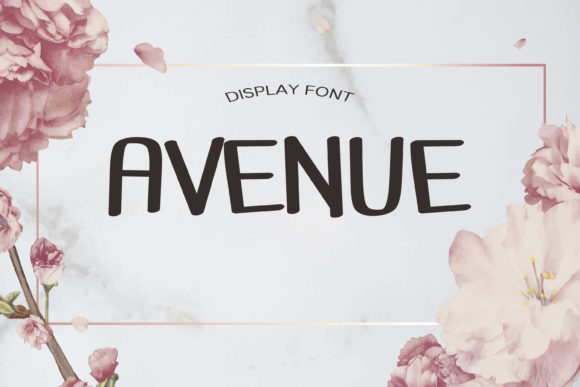
The Ultimate Display Font: Avenue
Have you ever been in the middle of a design project, and suddenly, you’re stuck on finding the perfect font? I recall a project where I needed a modern, all-caps display font that would give my design a playful yet sophisticated edge. The client wanted something fresh and contemporary, and I was on a mission to find it. That’s when I stumbled upon Avenue Font, and it instantly became my go-to choice.
A Personal Review of Avenue Font
Avenue is a modern, all-caps display font specifically developed for contemporary design styles and applications. Here’s what I love about it:
- ✨ Perfect for branding projects: Avenue’s clean and sleek design makes it ideal for creating stunning brand identities.
- ✅ Striking posters and flyers: The font’s bold and modern style ensures your posters and flyers grab attention.
- 🎉 Unique display font for web or app development: Avenue’s versatility makes it suitable for various digital applications.
While Avenue Font is an excellent choice, there are a few minor quirks to consider:
- ⚠️ Limited use in body text: As an all-caps display font, Avenue might not be the best choice for lengthy body text.
- 🤔 Some letter combinations may require manual kerning: While the font is well-designed, some letter combinations might require manual kerning for optimal results.
The Designer Inspiration Behind Avenue Font
Avenue Font was designed with the modern designer in mind. Its creator aimed to craft a font that would be both playful and sophisticated, making it perfect for a wide range of design applications. The designer’s inspiration came from the urban landscape, with a focus on clean lines, bold shapes, and a touch of elegance.
| Font Name | Avenue Font |
| Author | DmDesignsStoreArt |
| What is Avenue Font best suited for? | Avenue Font is perfect for branding projects, striking posters, and as a unique display font for web or app development. |
| Is Avenue Font suitable for body text? | While Avenue Font is a beautiful font, it’s primarily designed for display purposes and may not be the best choice for lengthy body text. |
| Does Avenue Font come with OpenType features? | Yes, Avenue Font features OpenType features, glyphs, and stylistic alternates, making it a versatile font for creative projects. |